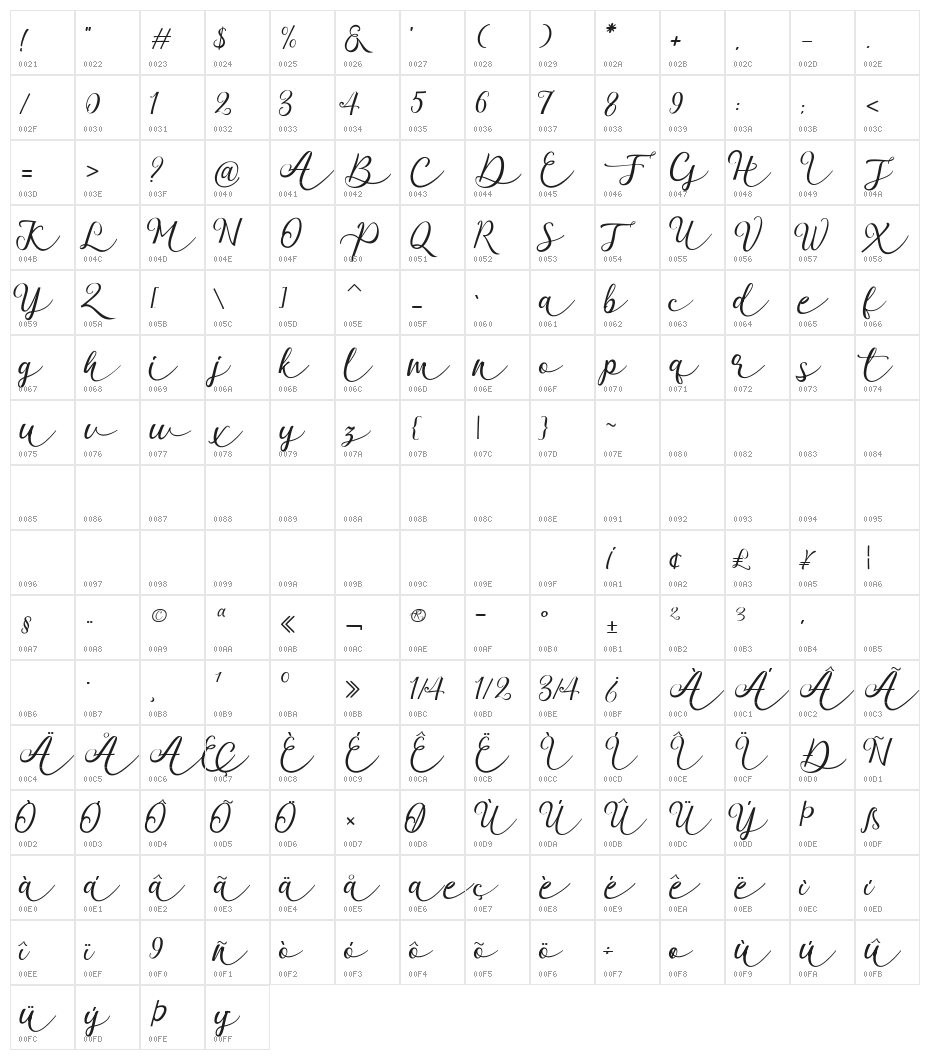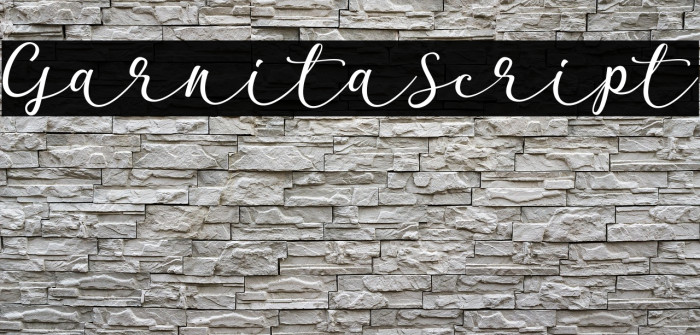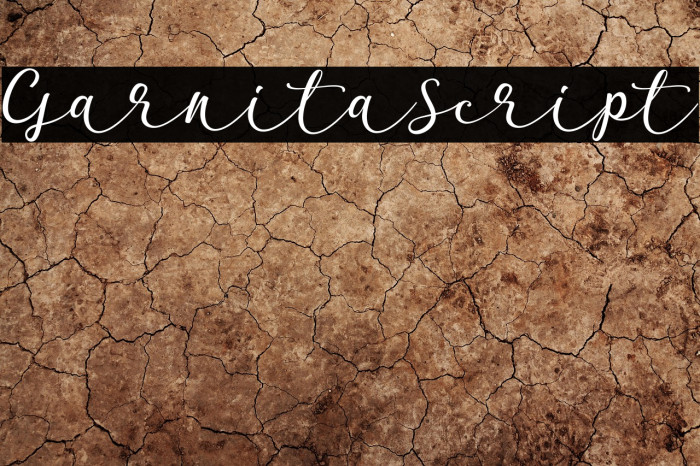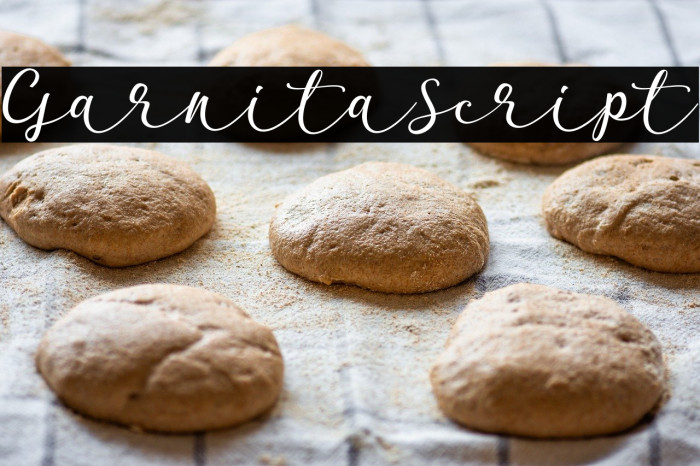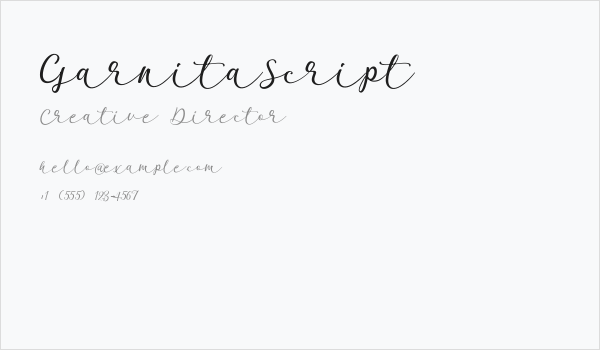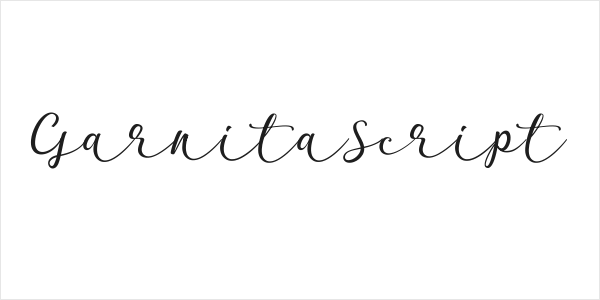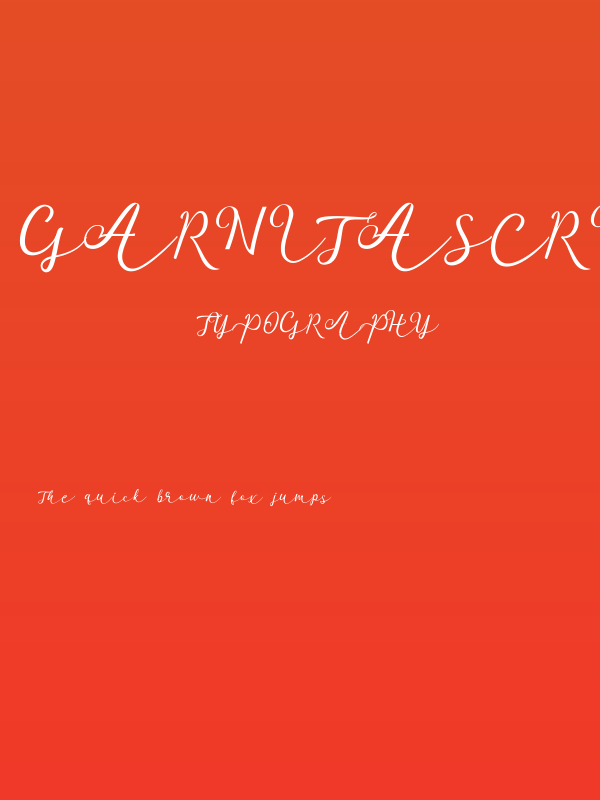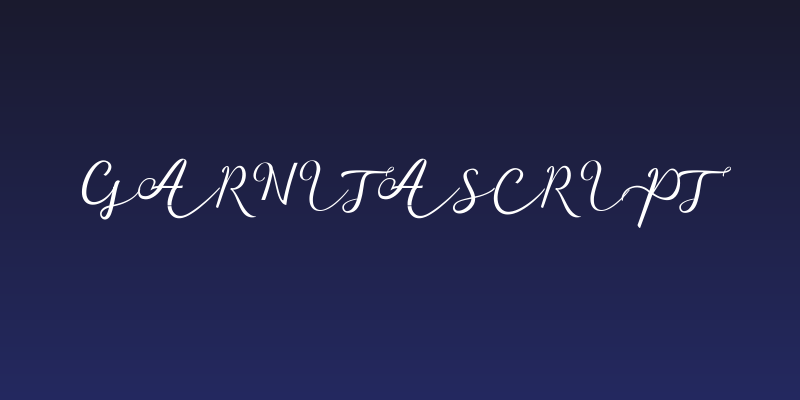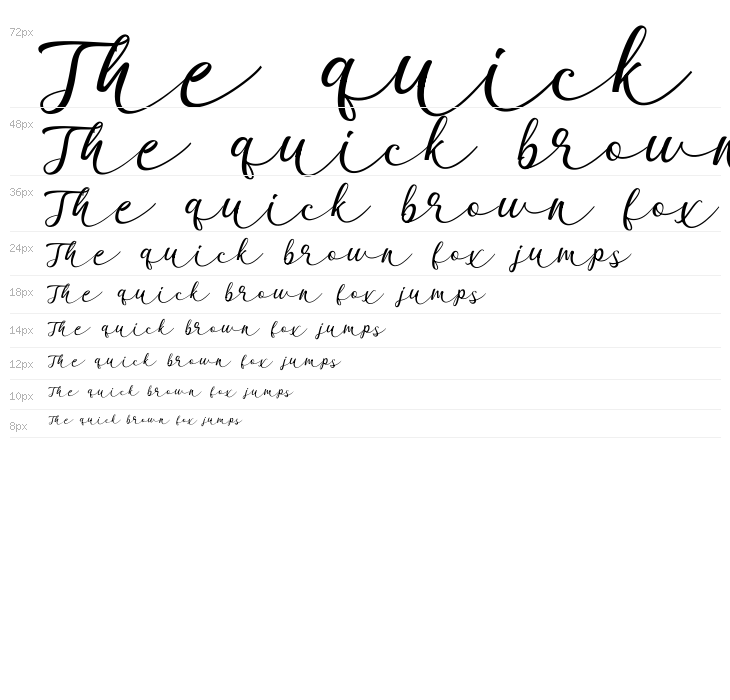
GarnitaScript Font
GarnitaScript Description
This elegant script font features flowing, cursive letters with a graceful and sophisticated appearance. The uppercase letters are ornate, with sweeping curves and flourishes that add a touch of luxury and refinement. The lowercase letters maintain a consistent style, with smooth connections between characters, enhancing the font's fluidity. The numerals are stylish and complement the overall aesthetic, while the special characters are designed with similar attention to detail. This font exudes a sense of elegance and is perfect for projects that require a touch of class and sophistication.
| Overall Style | Elegant |
| Use Case | Logos, Invitations, Branding |
| Proposed Projects | Ideal for wedding invitations, luxury branding, elegant stationery, and upscale packaging. |